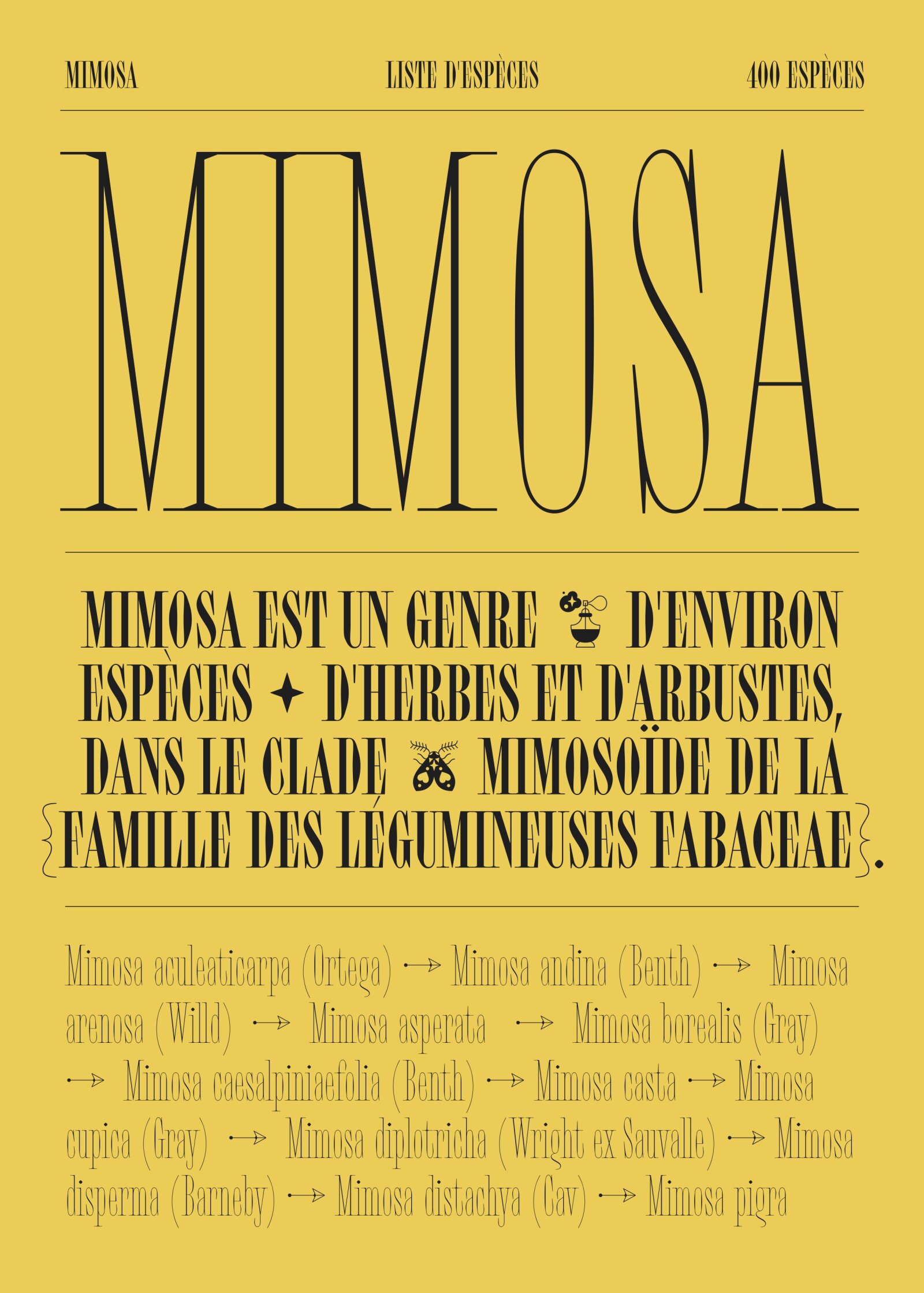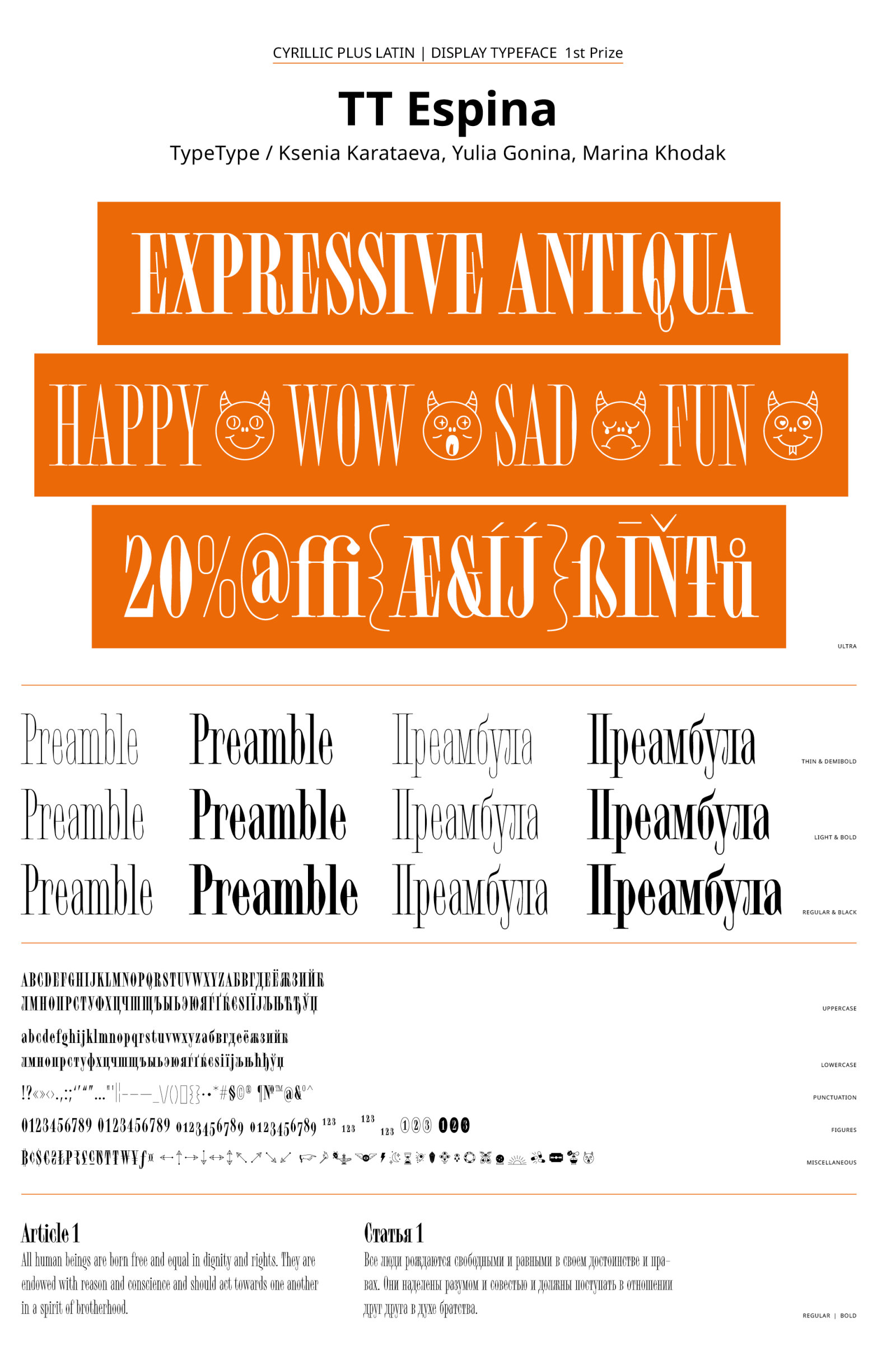
TT Espina
by Ksenia Karataeva, Yulia Gonina, Marina Khodak
Cyrillic
TT Espina is a charming display Antiqua with expressive serifs and diamond-shaped bowls. To create it, our designers drew inspiration from the historical shape of the letter O that acquired a rhomboid shape during the printing process quality. The font features high contrast, closed aperture, and narrow proportions that give it a particular aesthetic. It certainly knows how to charm: every letter is worth a closer look to catch all the little details. This typeface is an excellent example of a stylish and advanced serif. It can highlight a dreamy mood of projects in art, music, fashion, or esotericism.